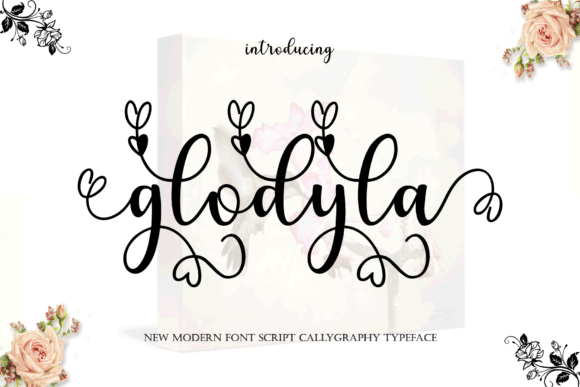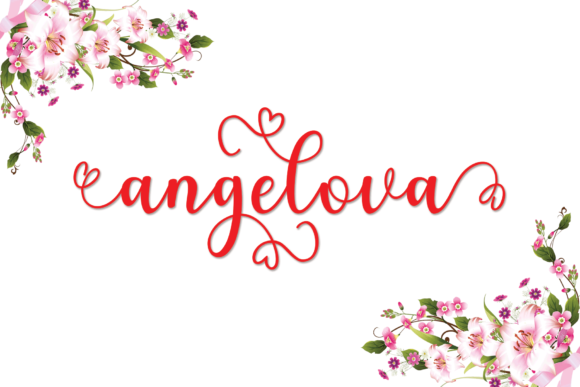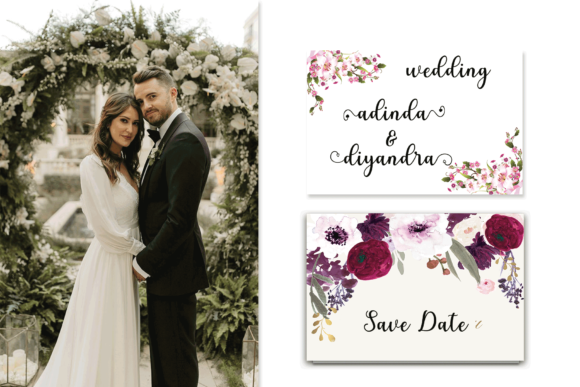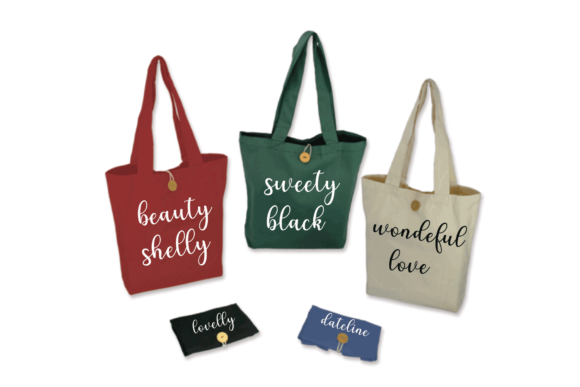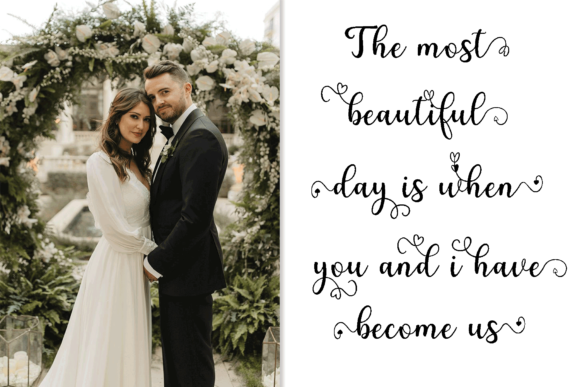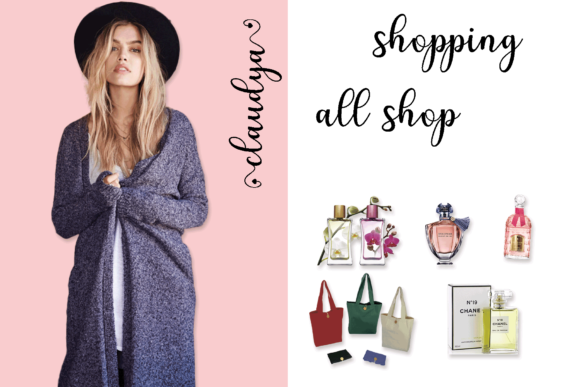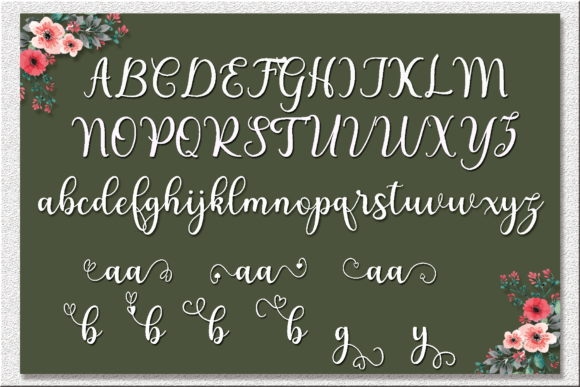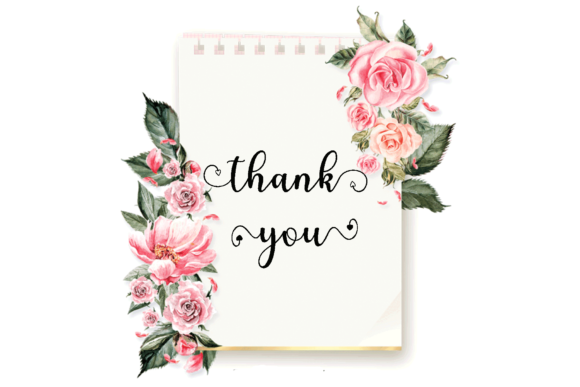
HomeScript FontsGlodyla Font Script Fonts Glodyla Font FacebookXPinterestWhatsApp Glodyla Font Poster 2 Glodyla Font Poster 3 Glodyla Font Poster 4 Glodyla Font Poster 5 Glodyla Font Poster 6 Glodyla Font Poster 7 Glodyla Font Poster 8 About Glodyla Font Glodyla is a cute and playful script with gorgeous swashes. Fall in love with its vibrant charm! DOWNLOAD ON CREATIVE FABRICAThis font is sold and delivered by Creative Fabrica. Font Canyon may earn a commission if you buy through this link. People also explored Plandscape Font Camping Font Stint Pro Little Chicken Font Honeyloves Font Amoretta Berdiate Font Starry Night Font Black Horse Font 299 0 TagsGlodyla Font Previous articleSharifa FontNext articleTexas Twilight Font LEAVE A REPLY Cancel reply Comment: Please enter your comment! Name:* Please enter your name here Email:* You have entered an incorrect email address! Please enter your email address here Website: Save my name, email, and website in this browser for the next time I comment. Personal Use Free Bukan Personal Use Free Read more about this font Casual Personal Use Free Read more about this font Namskow Personal Use Free Read more about this font The Lima Personal Use Free Read more about this font BLOG To increase your work productivity, choose the most readable fonts. In today's fast-paced work environment, where digital communication and information consumption are integral to our daily routines, the choice of fonts can significantly impact... How to Cut Any Font on Cricut: Convert a Font to SVG (Free) Top 10 Handwritten Fonts That Elevate Your Designs Modern Sans-Serif Fonts That Brands Love in 2025